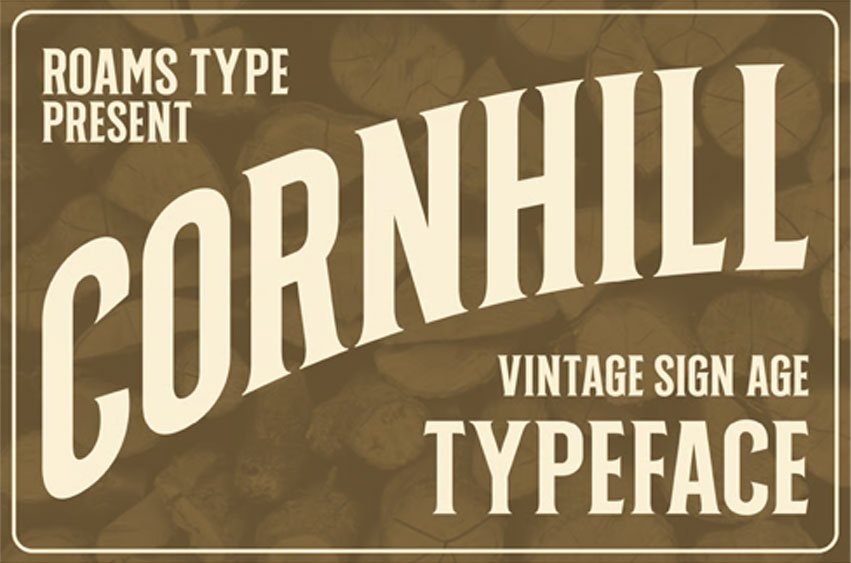
Cornhill Font
Cornhill Font is a bold, vintage-inspired display typeface that captures the essence of classic industrial signage and heritage labels.
With its condensed forms and distinctive serif details, it delivers a strong, authentic aesthetic perfect for rugged branding and timeless designs.